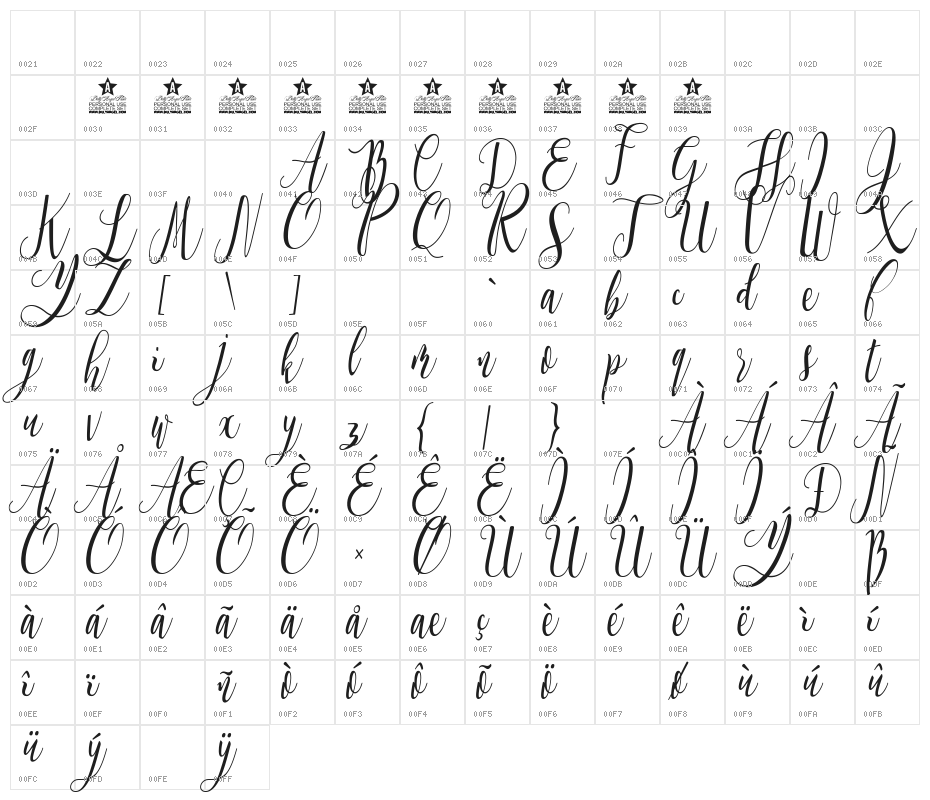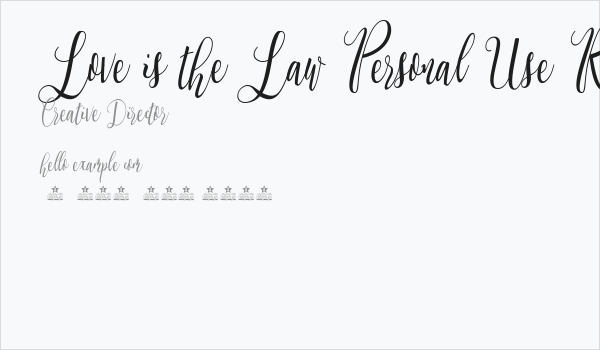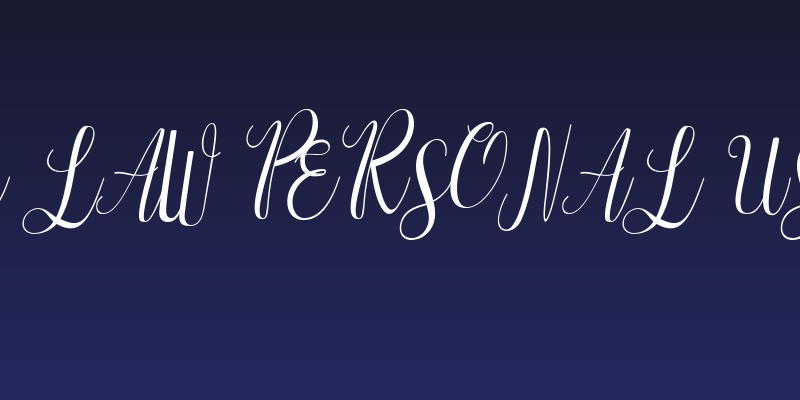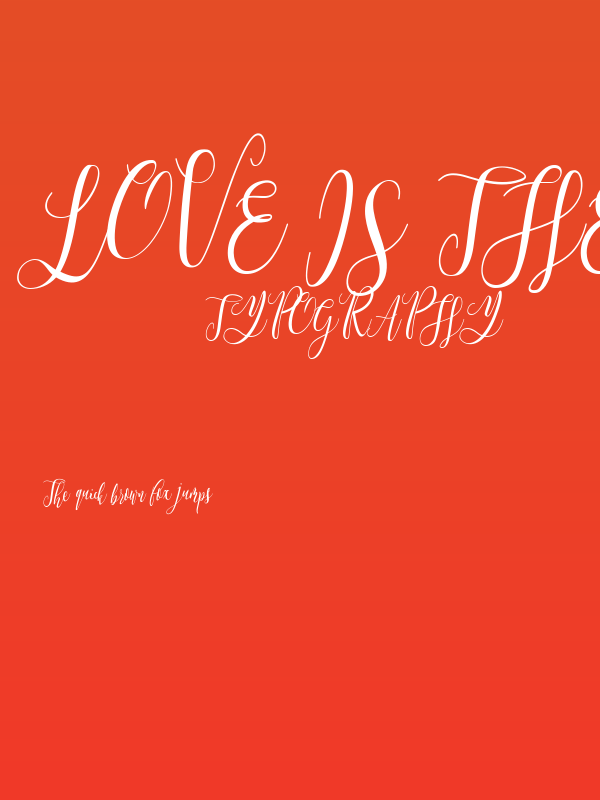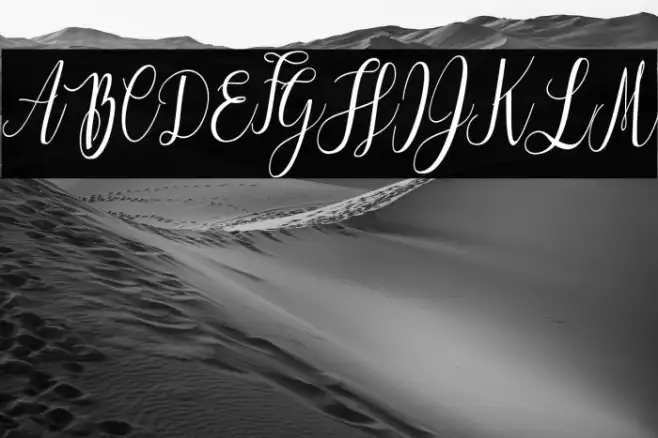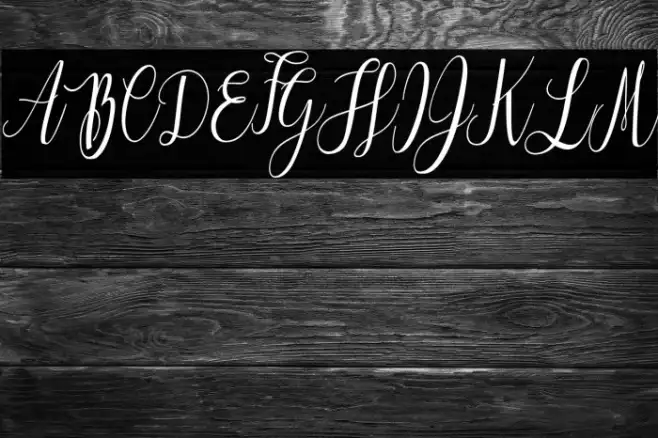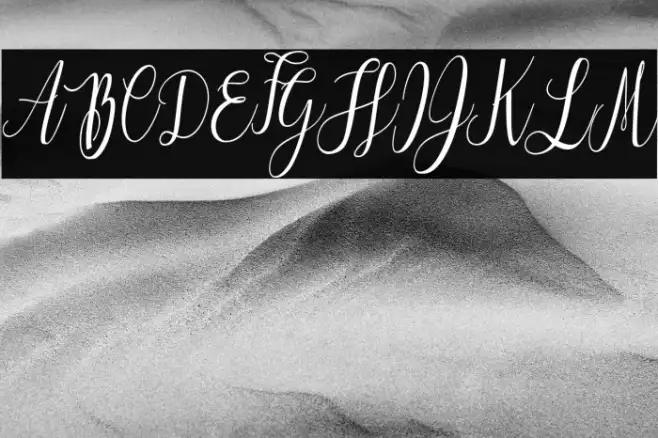
Love is the Law Personal Use Regular Font
Love is the Law Personal Use Regular Description
This font features an elegant and flowing script style, characterized by its intricate and decorative letterforms. The uppercase letters are tall and slender, with graceful loops and swashes that add a touch of sophistication. The lowercase letters maintain a consistent style, with smooth curves and a slightly condensed appearance. The font exudes a sense of romance and artistry, making it ideal for creative and expressive designs. The numerals and special characters are designed to complement the overall aesthetic, ensuring a cohesive look across all text elements.
| Use Case | Logos, Invitations, Artistic designs |
| Proposed Projects | Ideal for wedding invitations, greeting cards, branding, and artistic projects. |